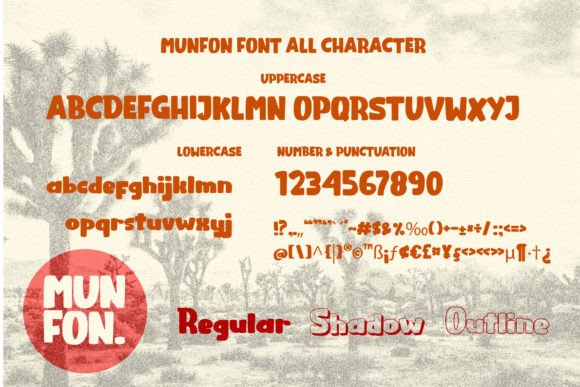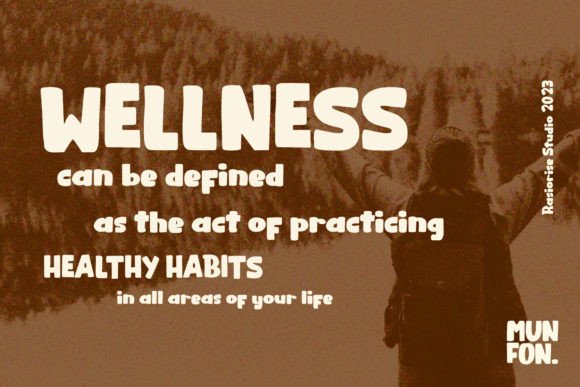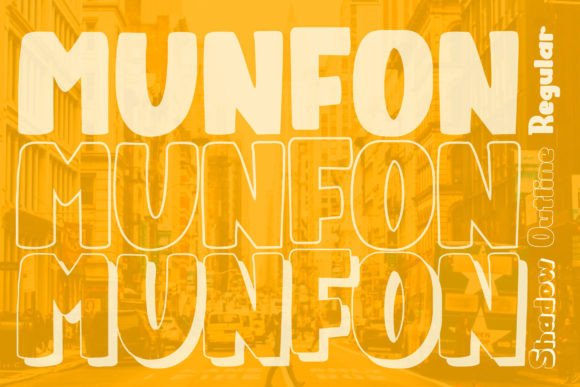
Introduction to Munfon Font
Have you ever stared at a blank canvas, wondering where to start on your next creative project? The spark of inspiration can strike at any moment, and for many designers, it’s the thrill of discovering a new font that sets the wheels in motion. For those in search of a unique Sans Serif Cartoon Font, we’re excited to introduce the Munfon Font – a trio of playful, retro-inspired designs that are sure to add a touch of whimsy to your next project.
Developed by Rasiorise Studio, the Munfon Font is a high-quality design resource that boasts three distinct styles: Regular, Monoline, and Shadow. Its Retro Movie poster Typography hand drawing font style is a perfect blend of nostalgia and modern flair, making it an ideal choice for designers seeking a fun and eye-catching font. With its transparent background and free download option, the Munfon Font is an invaluable resource for creatives looking to add a dash of personality to their work.
Key Features of Munfon Font
- High-quality design resource with a unique, modern aesthetic, making it perfect for creative projects.
- Designed with a high resolution, ensuring crisp and clear text display, even at large font sizes.
- Includes a range of glyphs and characters, making it suitable for a wide range of creative projects, from logos and branding to digital art and typography.
Honest Review: Munfon Font
I recently had the chance to use the Munfon Font for a creative project and I’m excited to share my honest review. This font has a lot of potential, but like any design resource, it’s not perfect. Let’s dive in.
What works well: ✨ The Munfon Font has a unique, modern aesthetic that can add a touch of sophistication to any design. It’s a great option for creative projects that require a clean and minimalist look. The font is also highly customizable, allowing designers to adjust the size, color, and style to suit their needs.
- High quality: The Munfon Font is a high-quality design resource that’s perfect for professional projects.
- Transparent background: The font has a transparent background, making it easy to use with different design elements.
Limitations: ⚠️ While the Munfon Font is a great option for many projects, it’s not ideal for designs that require a lot of bold or italic text. The font can also be a bit difficult to read in certain contexts, such as small text sizes or in low-resolution images.
Overall impression: The Munfon Font is a solid choice for designers looking for a modern, high-quality font. While it’s not perfect, its unique aesthetic and customization options make it a valuable addition to any design library.
Munfon Font
The Munfon Font is a high-quality design resource perfect for any creative project. With its unique style and transparent background, it’s an excellent choice for designers looking to add a touch of sophistication to their work.
Tips for Getting the Most Out of Munfon Font
For the best results, use the Munfon Font on a high-quality design project with a transparent background. This will allow the font to stand out and add a touch of sophistication to your work.
The Munfon Font is perfect for use in logos, business cards, and other design elements where a high-quality, unique font is needed. It’s also great for use in social media graphics, presentations, and other creative projects.